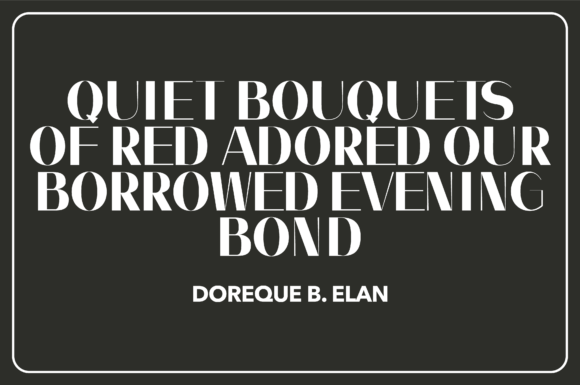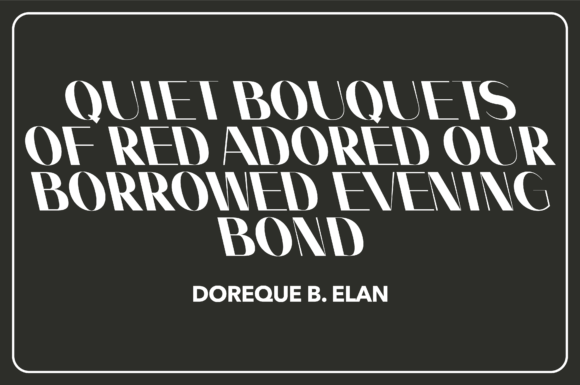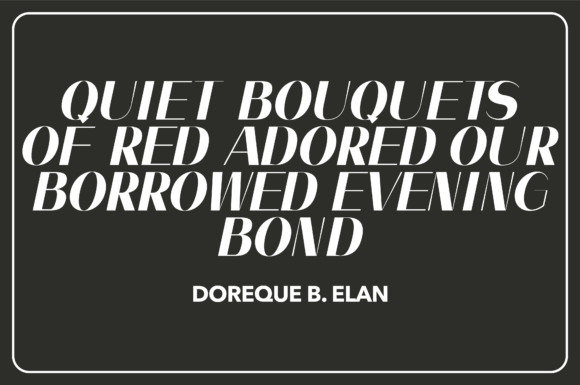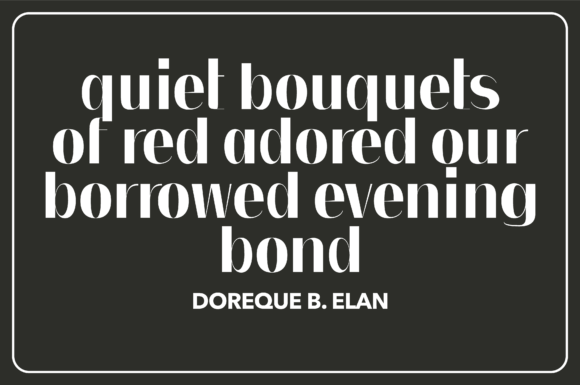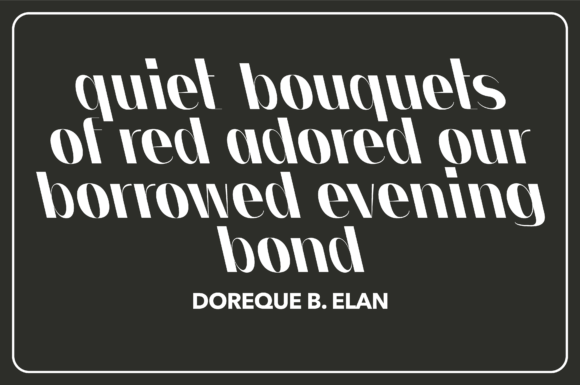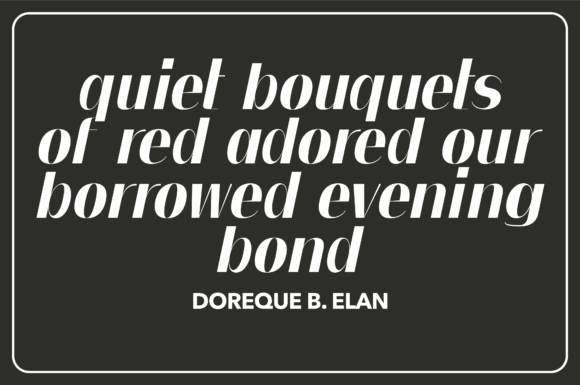
Introduction to Noir Font Font
Fonts play a crucial role in design, and the Noir Font font is a typeface that brings both character and versatility to any project. Whether you’re working on a branding project, a website, or a print design, the Noir Font font offers a unique style that can elevate your work.
Experience the unprecedented elegance and legibility of Noir, a captivating sans serif font series meticulously forged in three mesmerizing styles.
These include the standard Regular, the irresistibly alluring Italic, and the innovative Retalic β otherwise known as βReversed Italicβ Crafted with slick, sensuous lines with high contrast in glyph construction, Noir exudes a delightful fusion of aesthetics and functionality.
Key Features of Noir Font Font
Why Choose Noir Font Font?
The Noir Font font is more than just a typeface β it’s a design tool that helps you communicate your message with style and clarity. Its unique character set and versatile design make it suitable for a wide range of applications, from elegant invitations to bold headlines.
With its carefully crafted letterforms and balanced proportions, the Noir Font font ensures readability and visual appeal across all mediums.
What makes Noir Font font special?
The Noir Font font stands out with its unique design, exceptional readability, and versatility across various design applications.